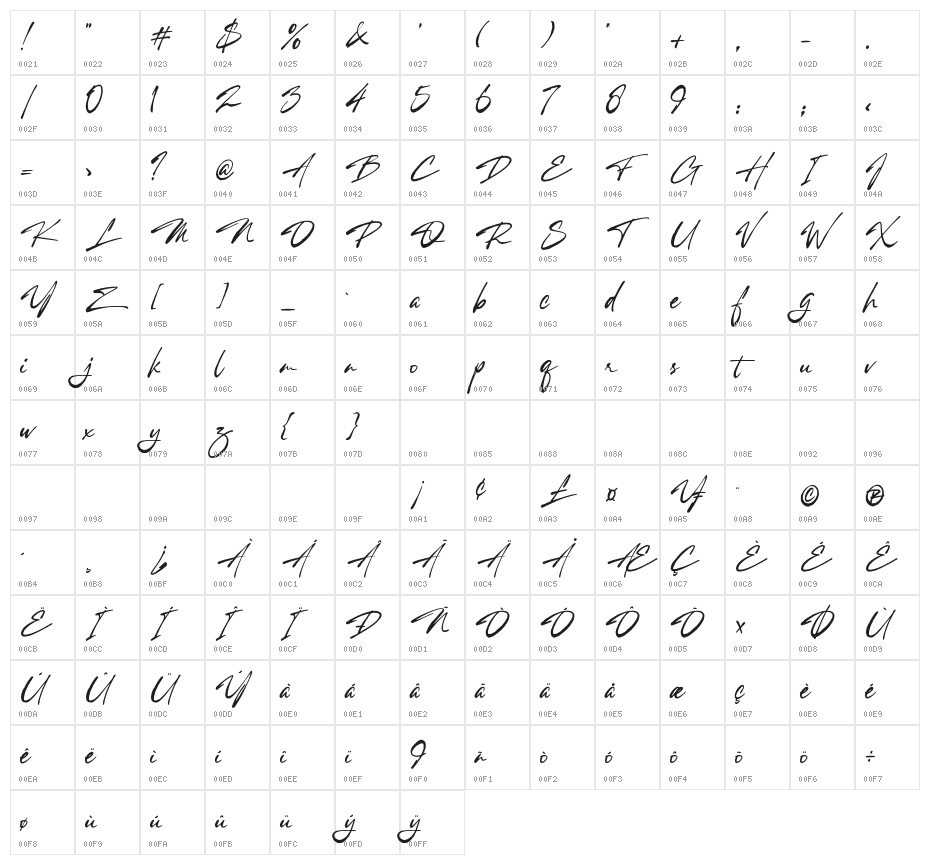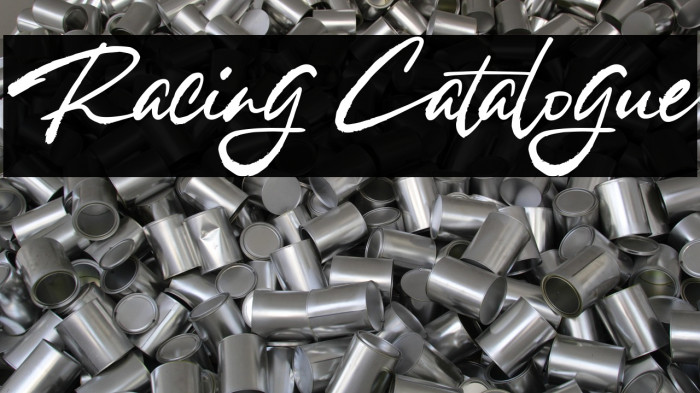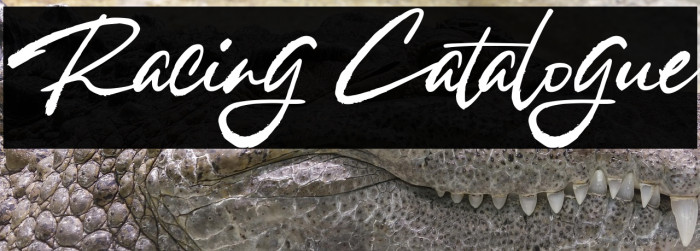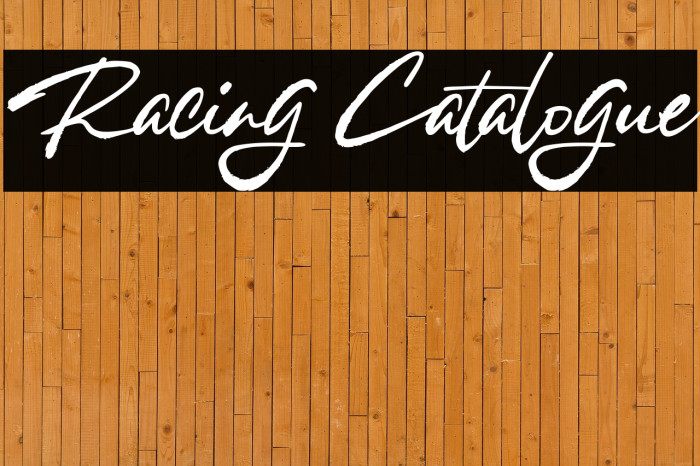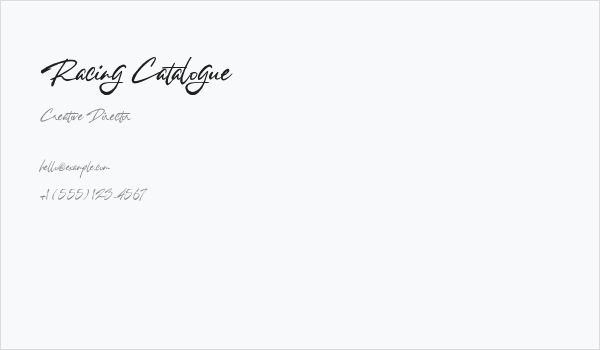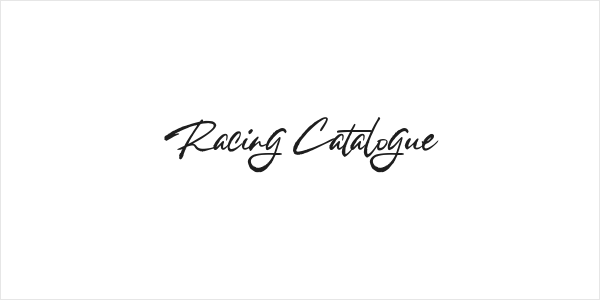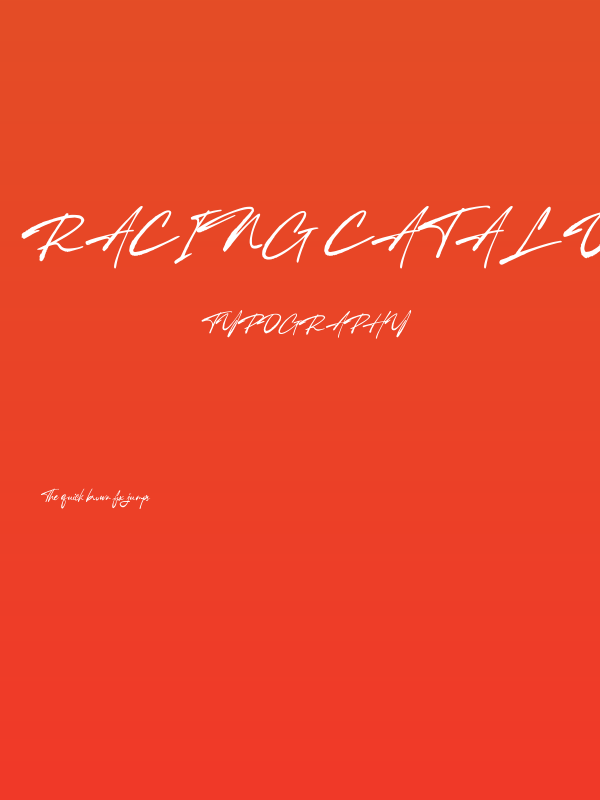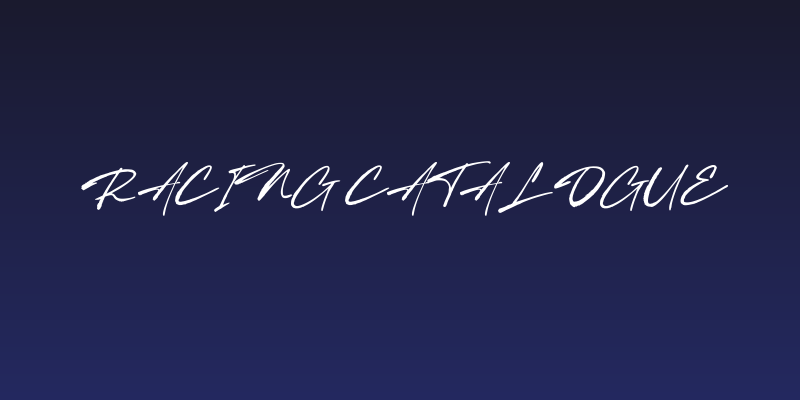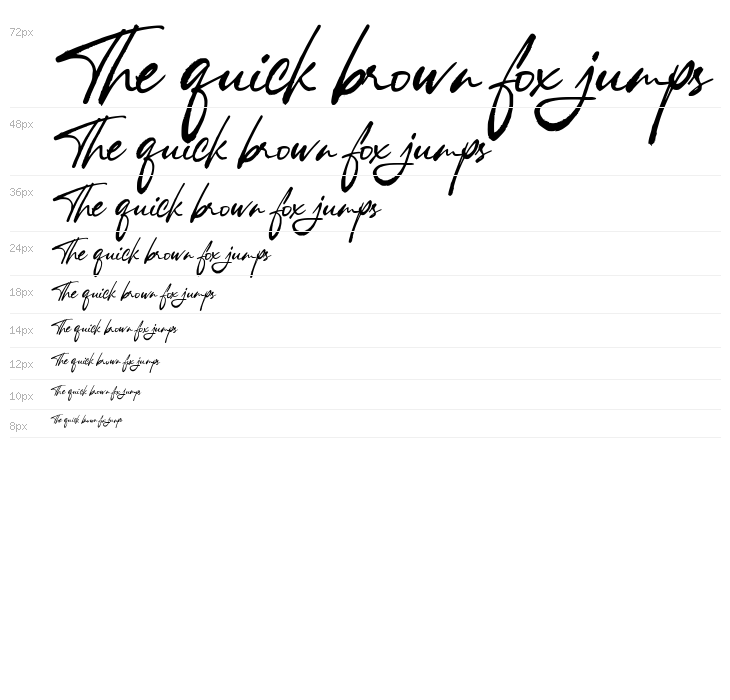
Racing Catalogue Font
Racing Catalogue Description
This font features a dynamic and energetic script style, characterized by its fluid, cursive strokes and a sense of motion. The letters are interconnected with a natural flow, giving it a handwritten appearance. The uppercase letters are bold and expressive, while the lowercase letters maintain a consistent rhythm. Numbers and special characters are crafted with the same lively flair, making them stand out. The overall impression is one of speed and elegance, suitable for projects that require a personal touch or a sense of urgency.
| Proposed Projects | Ideal for branding, invitations, greeting cards, and dynamic advertising materials. |